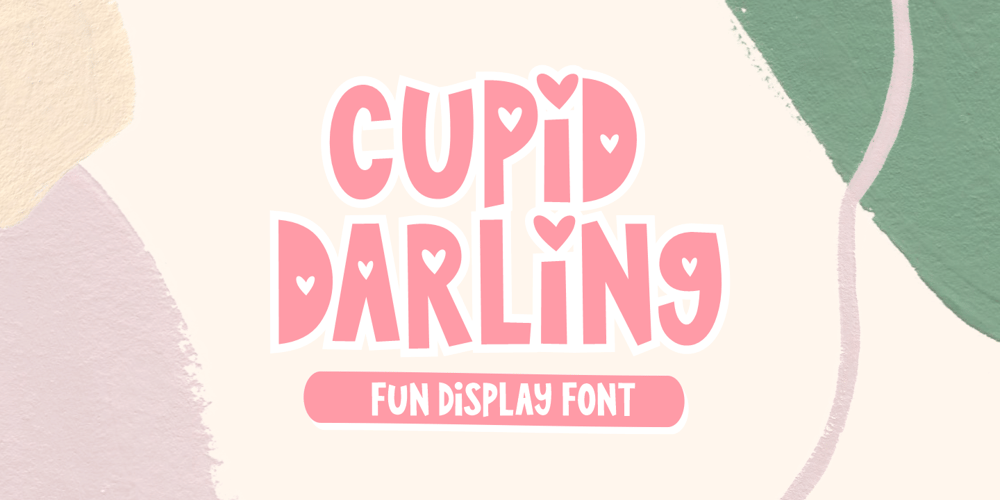
Cupid Darling Font Family was designed by Risca Anitawati and published by Reyrey Blue Std. Cupid Darling contains 1 styles and family package options. Say hello to Cupid Darling. A sweet and playful display typeface. Cupid Darling is perfect for branding, logos, social media quotes, stickers, posters, vintage designs, wall art and more! This font will make your design looks great and fun!Features :· All Uppercase and Lowercase· Number & Symbol· Supported Languages· Alternates and Ligatures· PUA Encoded